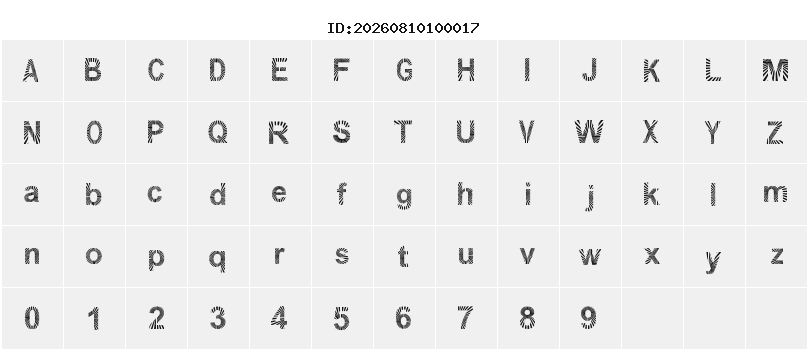
• Font Name: PAWLUK ZIBRA
• Designer: Pawluk Ivan
• Description: Regular Zibra Font
About PAWLUK ZIBRA.ttf
PAWLUK ZIBRA.ttf is a modern, elegant sans-serif font designed for ultimate readability and visual harmony. Perfect for branding, headlines, web design, and print materials.